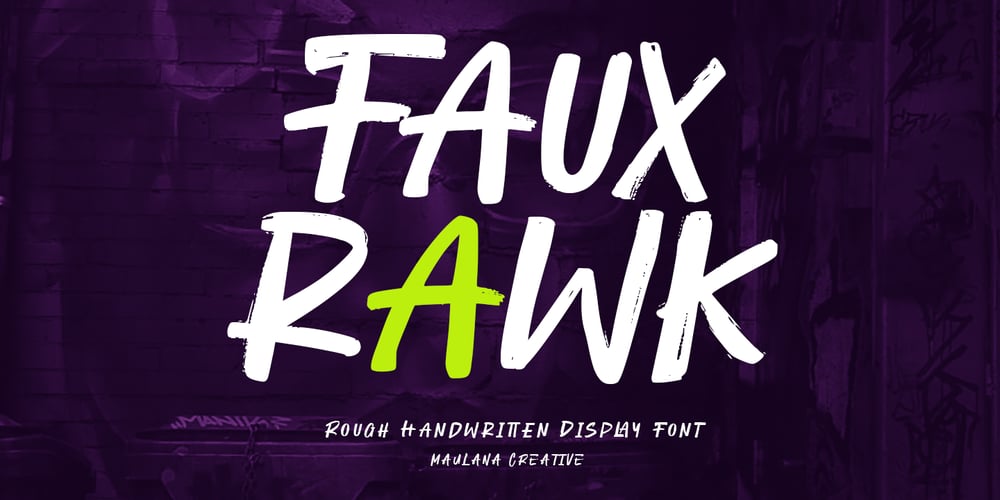
Fauxrawk Font Family was designed by Gilang Maulana and published by Maulana Creative. Fauxrawk contains 1 styles and family package options. Fauxrawk is a modern handwritten display font. With rough brush stroke, fun character with a bit of ligatures and alternates. To give you an extra creative work. Fauxrawk font support multilingual more than 100+ language. This font is good for logo design, Social media, Movie Titles, Books Titles, a short text even a long text letter and good for your secondary text font with sans or serif. Make a stunning work with Fauxrawk font. Cheers,Maulana Creative